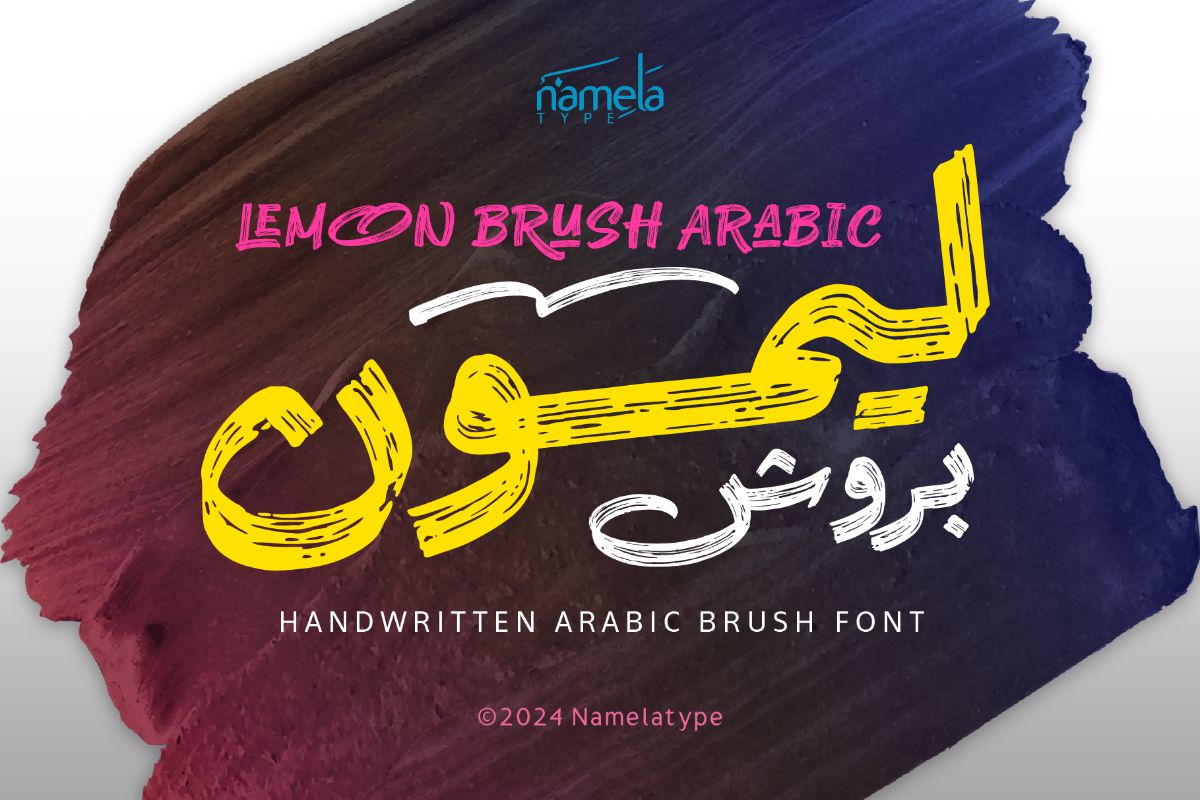
Lemon Brush Arabic Regular
Lemon Brush Arabic Font - A Handwritten Brush Typeface for Branding & Social Media Some typefaces are built to be invisible, quietly supporting text. Others are designed to be felt instantly—and Lemon Brush Arabic belongs firmly in the latter category. Bold, spontaneous, and unmistakably handmade, it represents Arabic typography with character and attitude. Lemon Brush Arabic Handwritten Brush Font by Namelatype translates the raw energy of dry brush lettering into the Arabic scrip